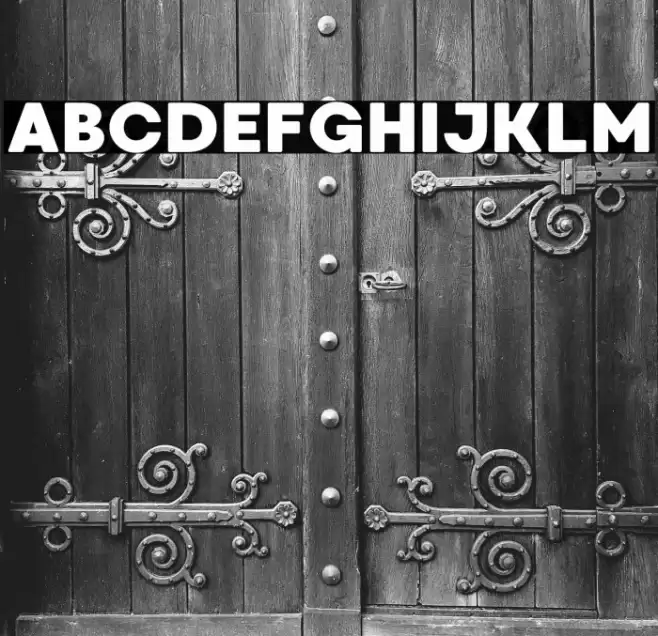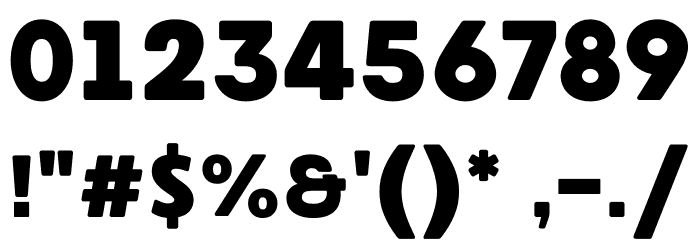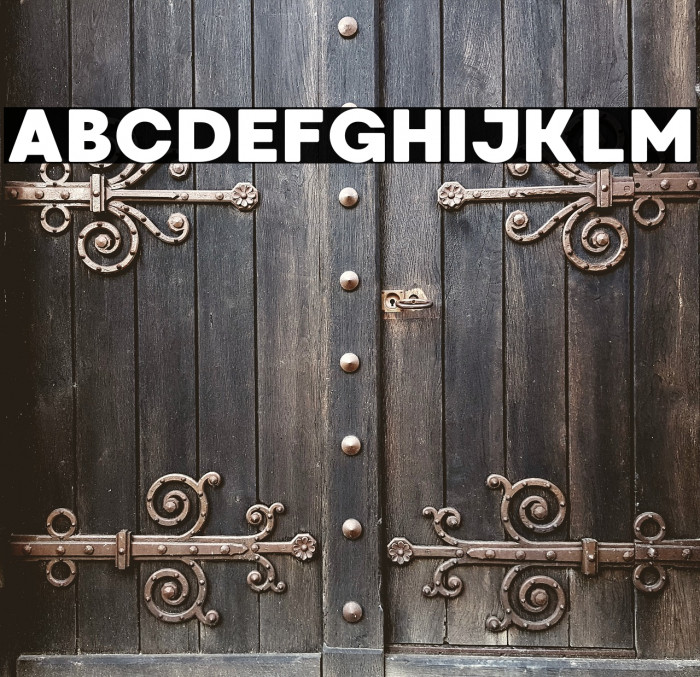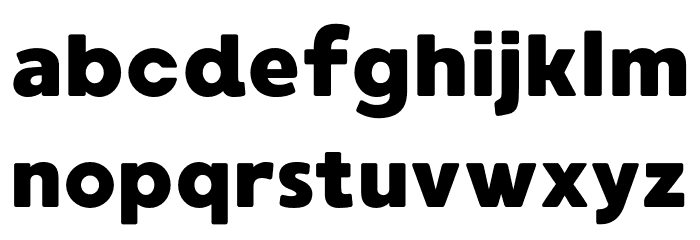
MADEWaffleSoft Font
MADEWaffleSoft Description
This font features a bold and rounded design, characterized by its smooth curves and uniform stroke width. The uppercase letters are strong and impactful, while the lowercase letters maintain a consistent and friendly appearance. The numerals are clear and easily distinguishable, making them suitable for a variety of uses. Special characters are well-integrated, maintaining the overall aesthetic of the font. The style is modern and approachable, with a playful yet professional vibe that can adapt to various design needs.
A bold, rounded font with a modern and friendly style from Uncategorized fonts.
- Proposed Projects: Ideal for branding, advertising, packaging, and digital media projects where a bold and approachable look is desired.
- Use Case: Headlines, Logos, Branding